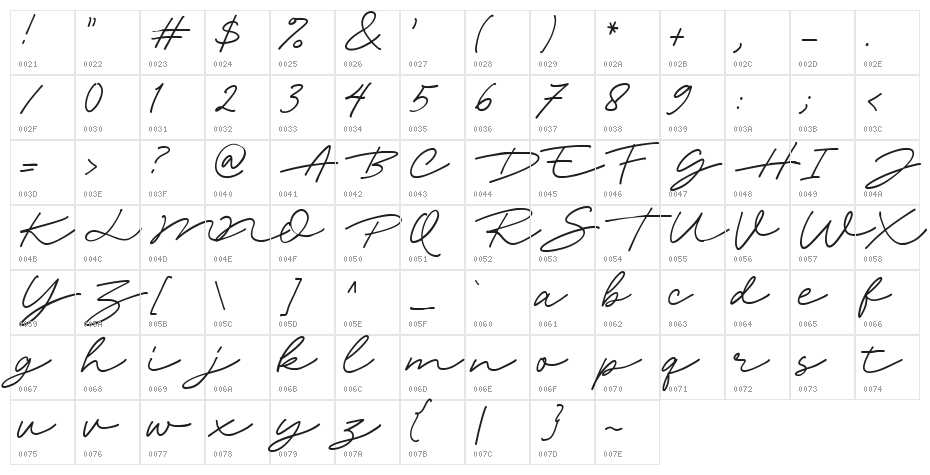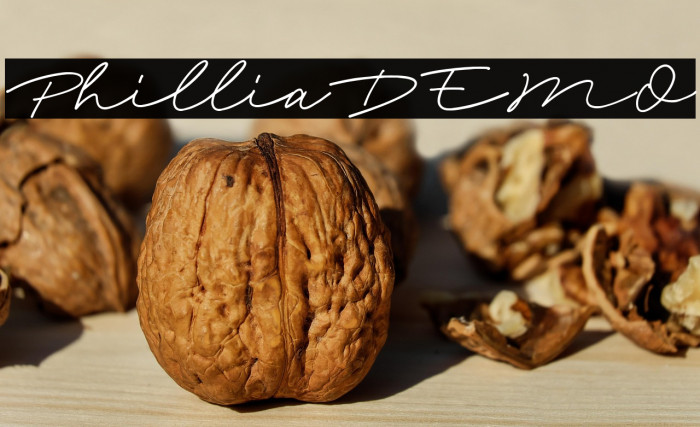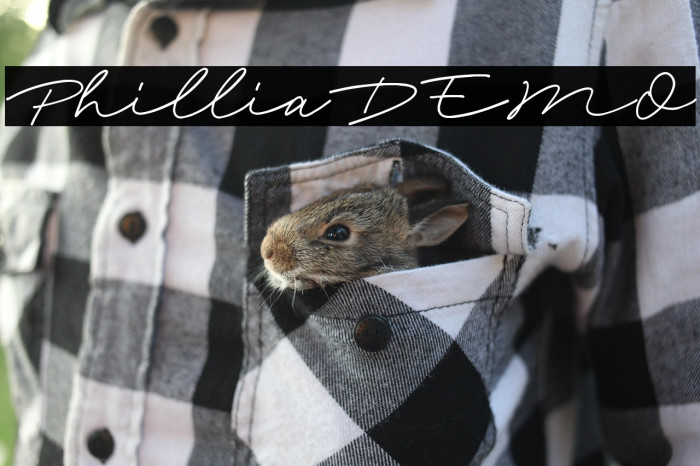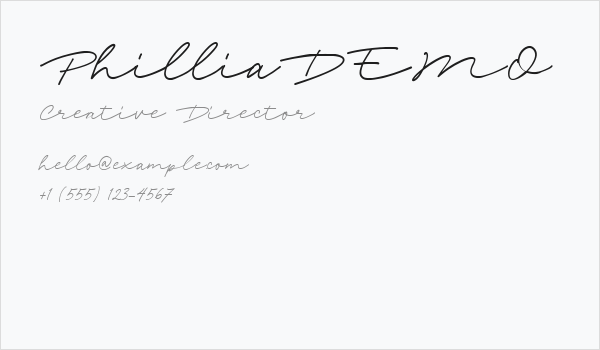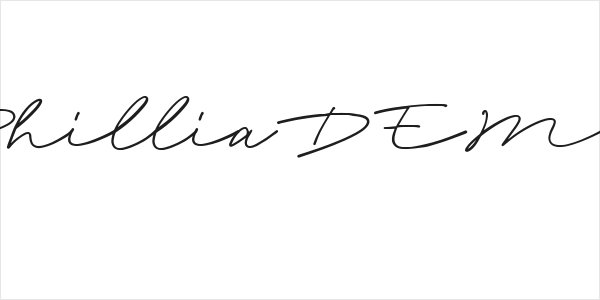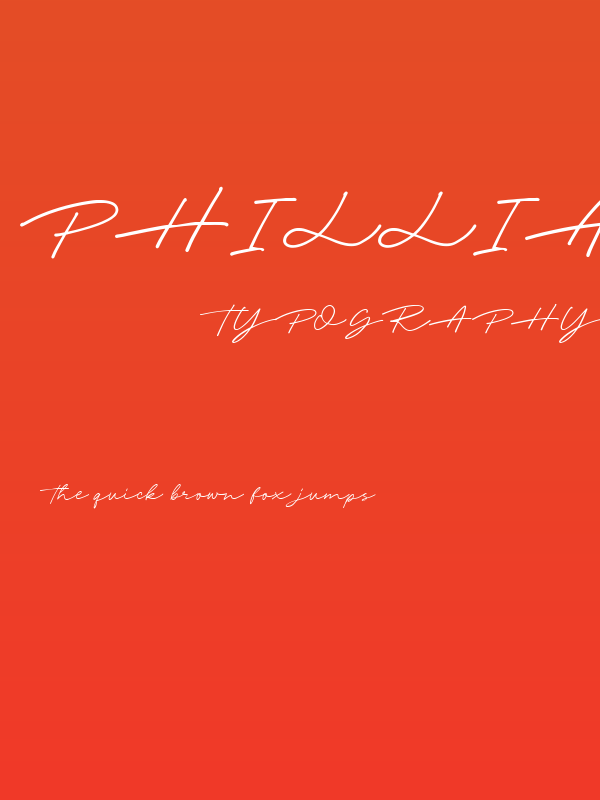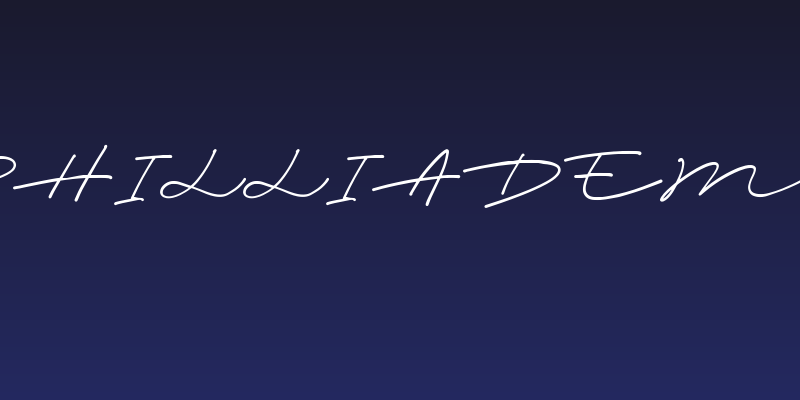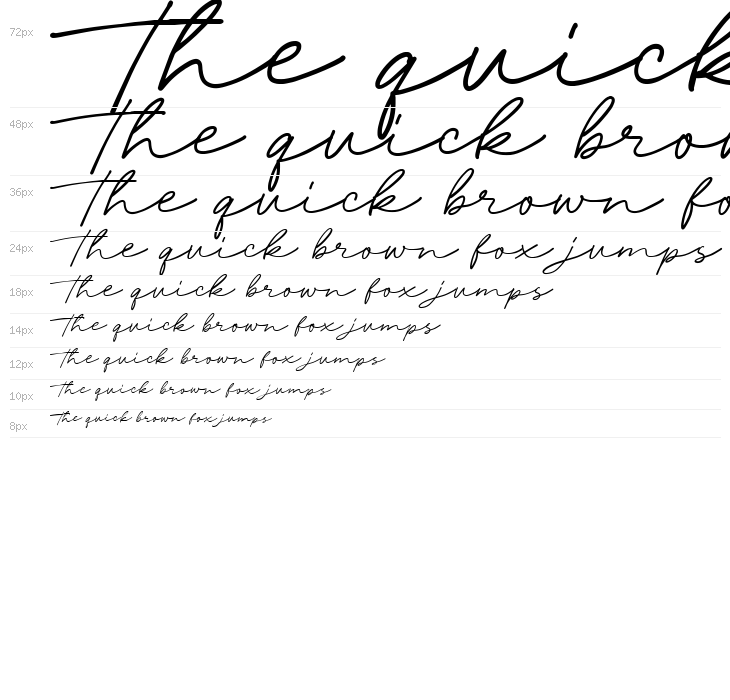
PhilliaDEMO Font
PhilliaDEMO Description
A flowing, cursive script font with a handwritten style, featuring smooth, connected letters and a casual elegance.
| Use Case | Logos, Invitations |
| Proposed Projects | Invitations, greeting cards, personal branding. |